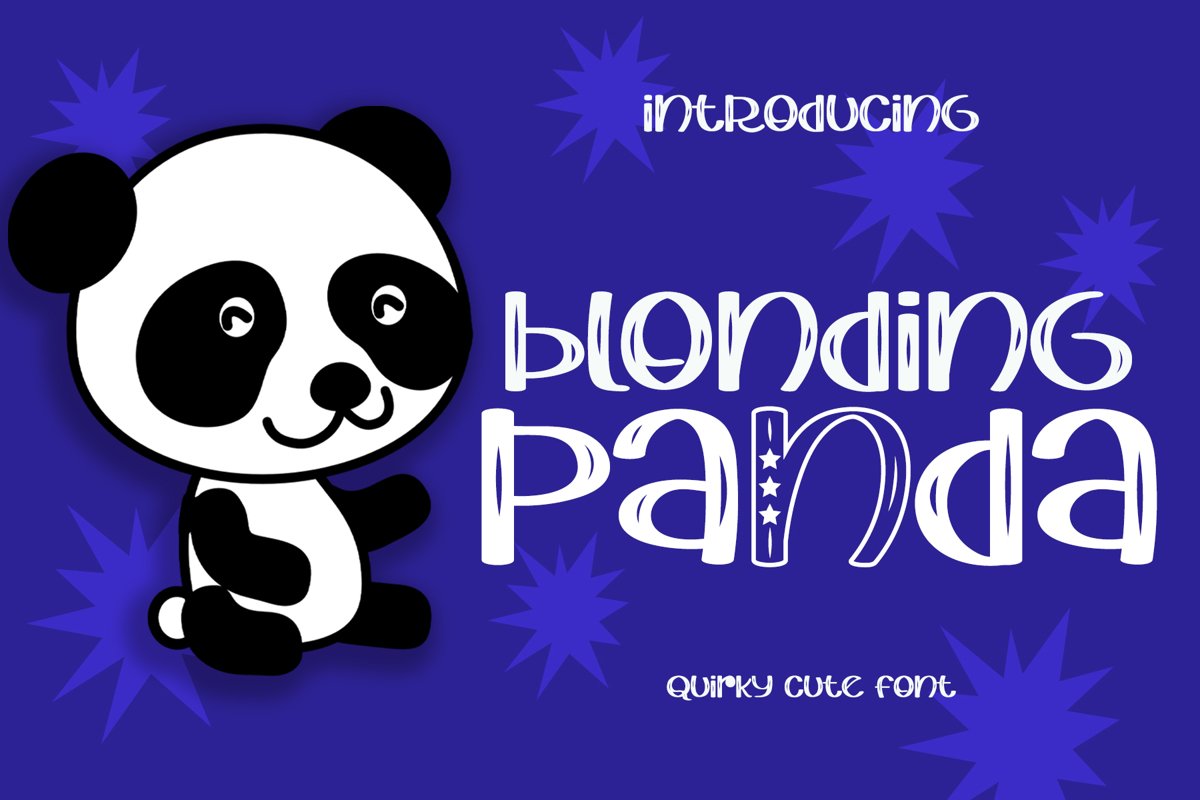
Blonding Panda is quirky cute font that will radiate the cuteness in your design. the Outline stars alternates give you more options of the cuteness.
+More than 300 Glyphs
+PUA-Encoded additional character outline stars
+Multilingual glyphs.